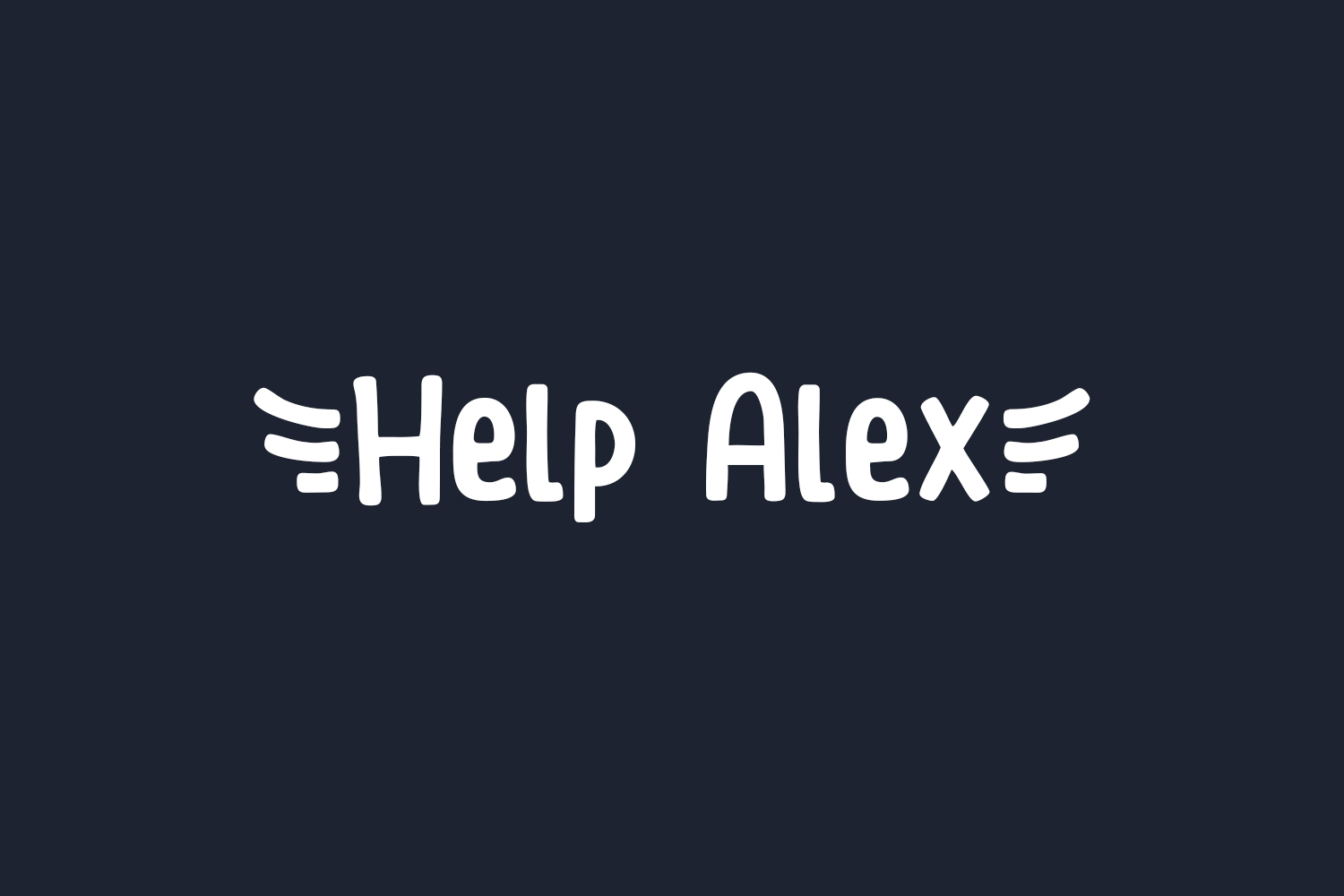
Help Alex Free Font is a sophisticated and elegant serif font, ideal for a wide range of design applications such as posters, logos, magazines, book covers, banners, and more. This remarkable font offers a touch of modernity and luxury to your designs. Unlock your creative potential by utilizing this amazing typeface and witness the captivating designs it can produce. With its remarkable versatility, Help Alex effortlessly complements an extensive variety of projects, enabling them to shine brilliantly. Incorporate this font into your creative ideas and experience how it sets them apart from the rest. Help Alex Free Font is free for personal use only. Please purchase the full version for commercial use.